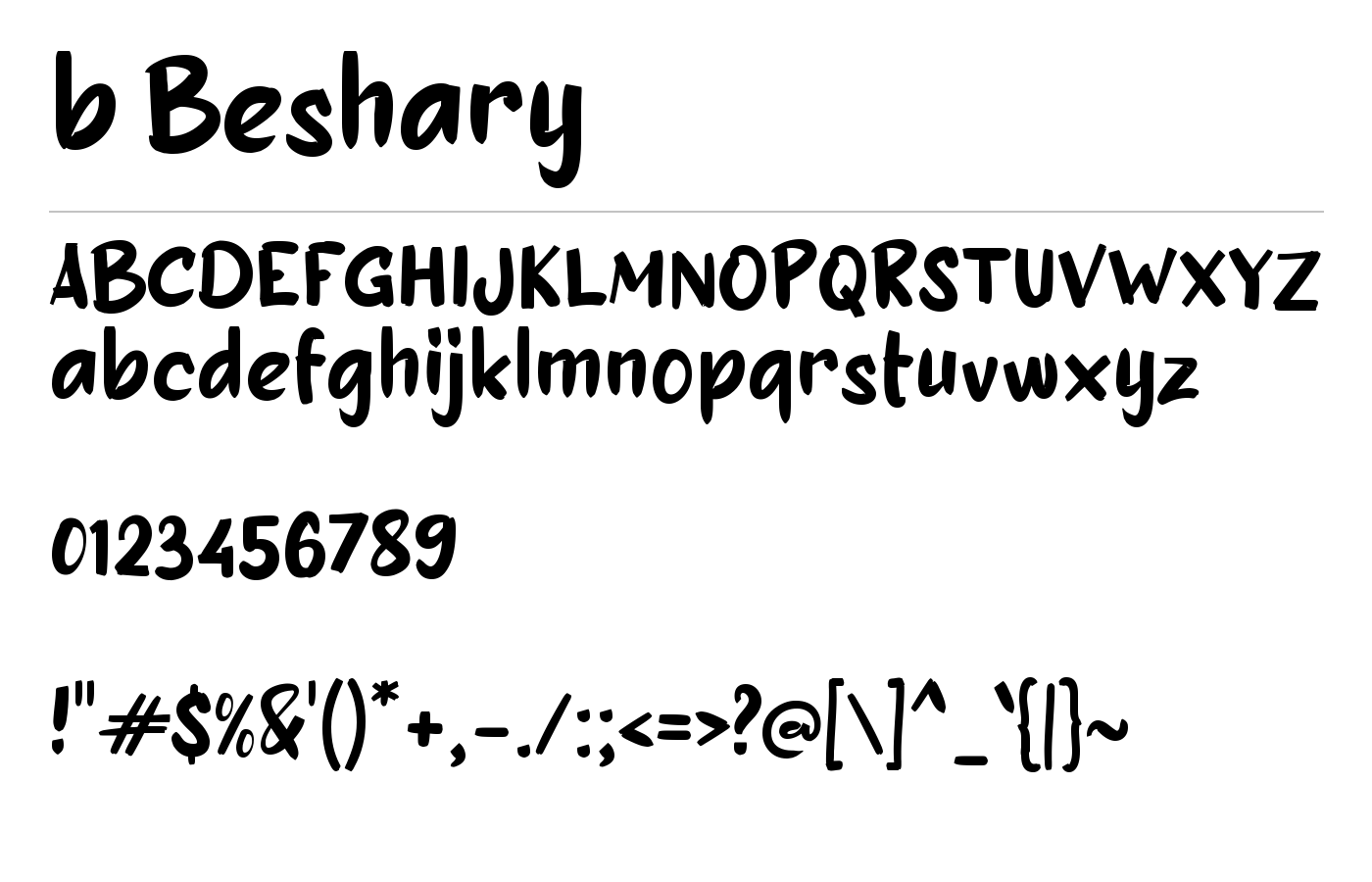
Beshary is a casual, handwritten-style sans serif font that feels friendly and approachable with its irregular, slightly bold strokes and organic shapes. Its upright letterforms and moderate contrast give it a lively yet legible personality, making it ideal for informal designs like greeting cards, playful branding, and creative headlines. This font works well anywhere a warm, personal touch is desired without sacrificing clarity.
b Beshary Font
About b Beshary Font